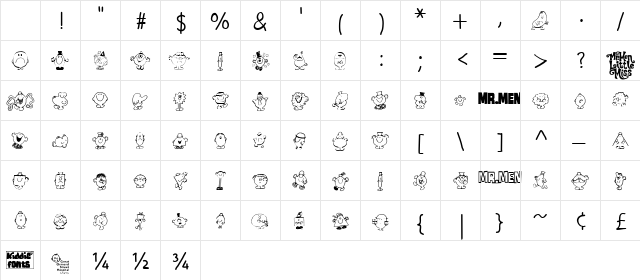
Complete Kiddiefonts Medium glyph index. Displaying only characters natively supported by Kiddiefonts Medium font.
Kiddiefonts is a composed and adaptable typeface that performs quietly and consistently across a wide range of design contexts.
Who designed the Kiddiefonts Medium font?